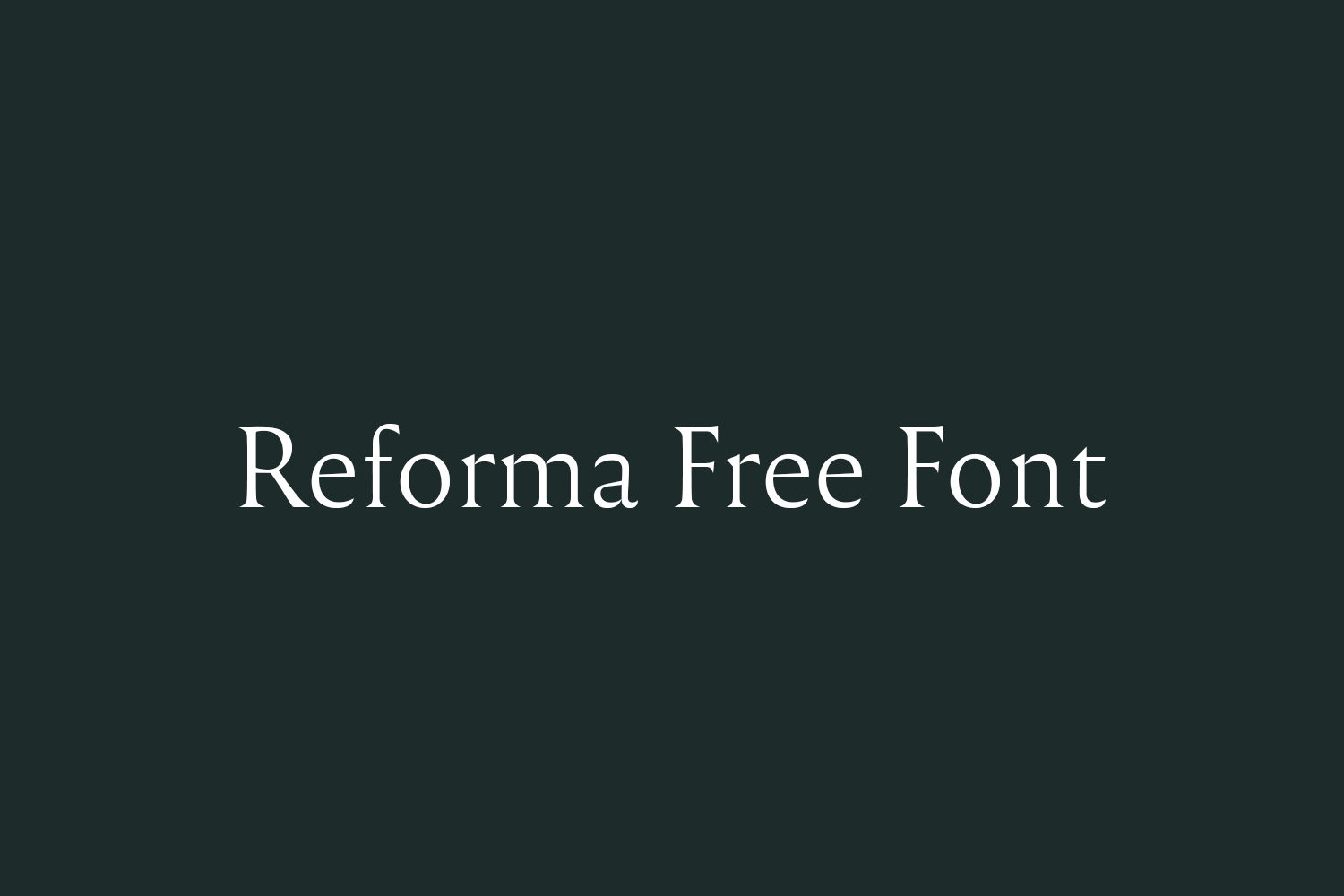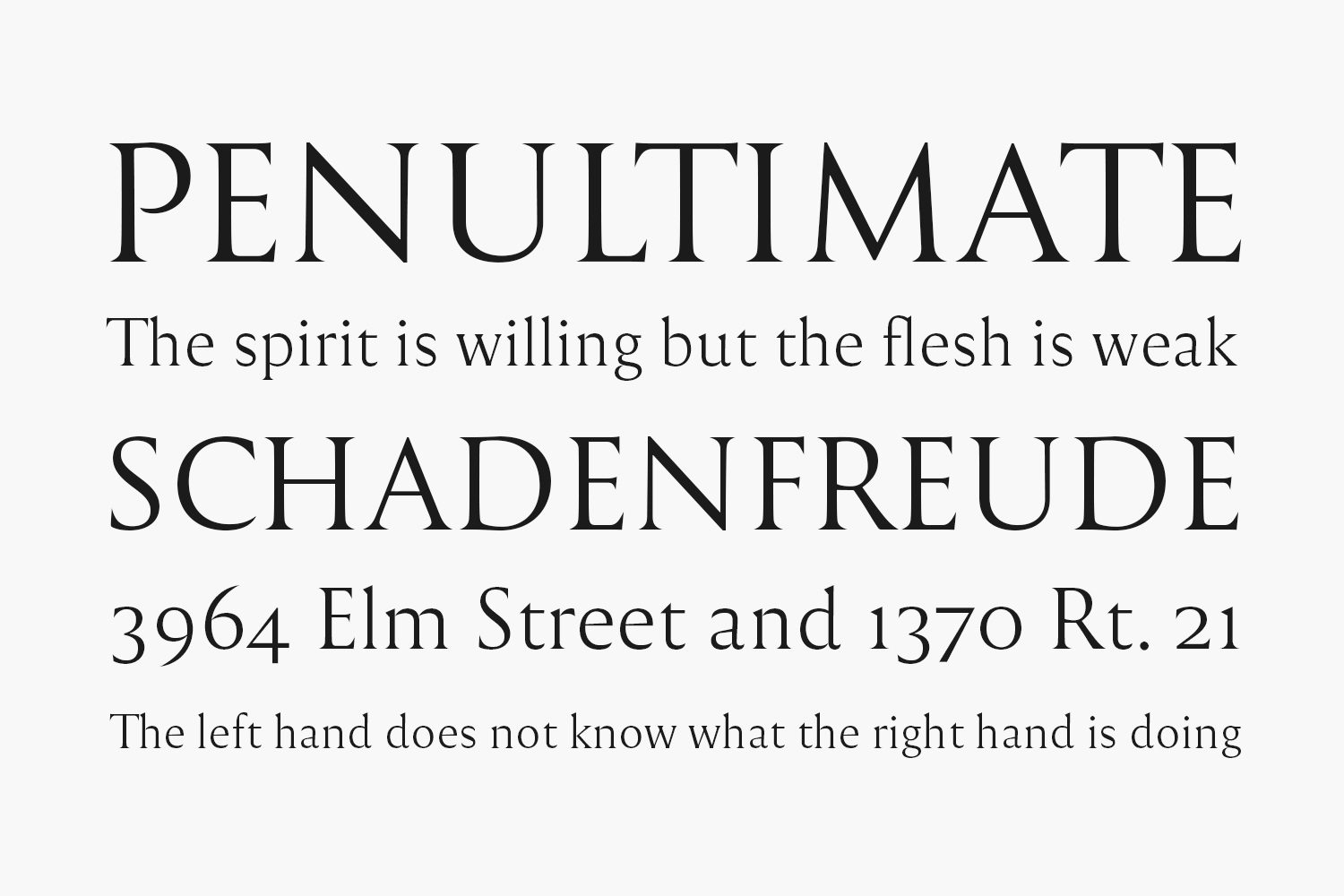
Reforma
Reforma Free Font Family is a bespoke typeface that we designed for the Universidad Nacional de Córdoba, Argentina, earliest university in the country and one of the first in the continent, with a history of more than 400 years. The typeface was commissioned as part of the celebrations for the centenary of the University Reform, which occurred in this house in 1918. Following the Argentinian national policy of open, free, and inclusive education, the typeface has been liberated for public and private use under a Creative Commons license.